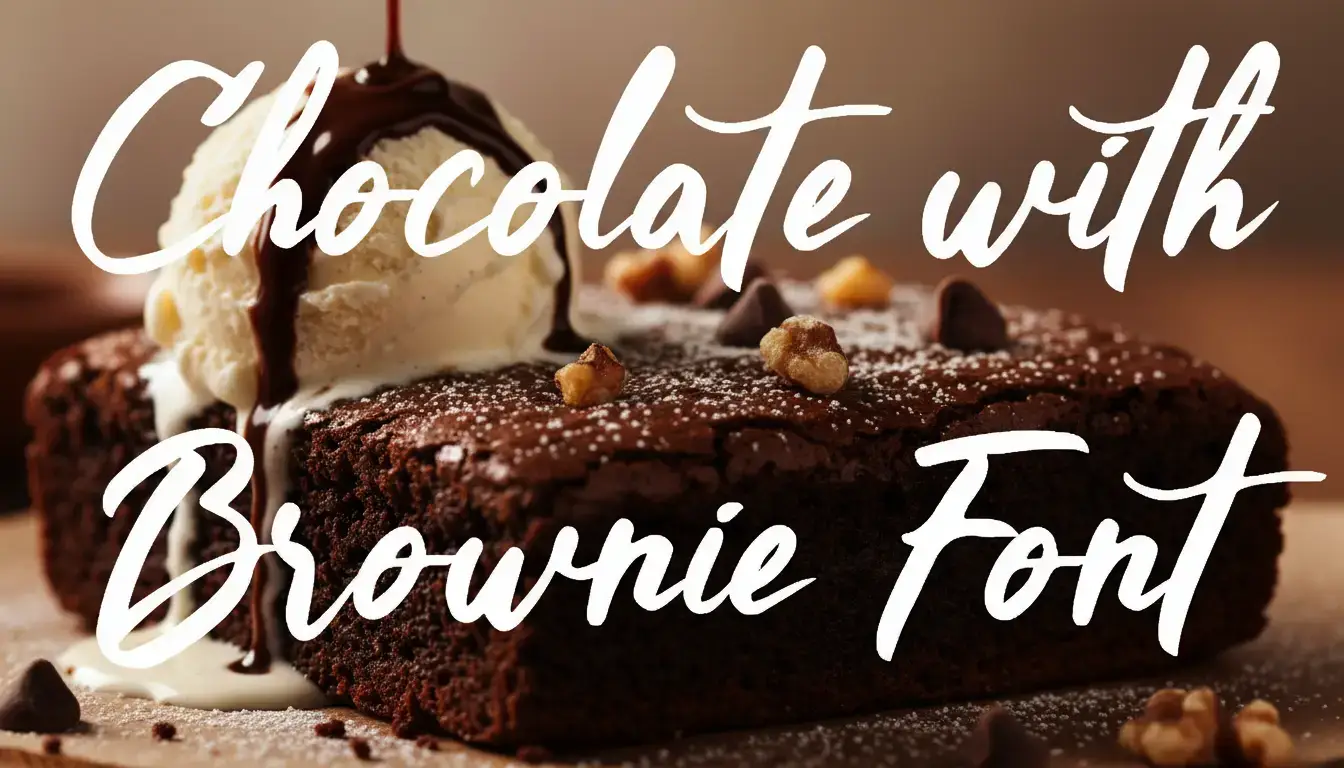
Chocolate with Brownie Font
Chocolate with Brownie
Chocolate with Brownie is a script font made by Octotype. It has that hand-lettered, flowing feel people look for when regular type seems too stiff. You can download it for free and test it with your own words in the preview above.
What You Can Type With Chocolate with Brownie
Chocolate with Brownie covers the full alphabet in upper and lowercase, plus all ten numbers, so you can set names, dates and prices without switching fonts. Punctuation is limited, so look at the character map if you need a specific symbol. It also has the accented letters you need for Spanish, French, Portuguese and Italian.
Where Chocolate with Brownie Works Best
Think of Chocolate with Brownie for wedding invitations, logos and signature-style headings. Script fonts read best in short bursts, so keep it to names, titles and one-line quotes. Skip all caps: script capitals are drawn to start a word, not to fill one.
Does Chocolate with Brownie support accented letters?
Yes. Chocolate with Brownie includes the accented letters needed for Spanish, French, Portuguese and Italian, so it works for more than just English.